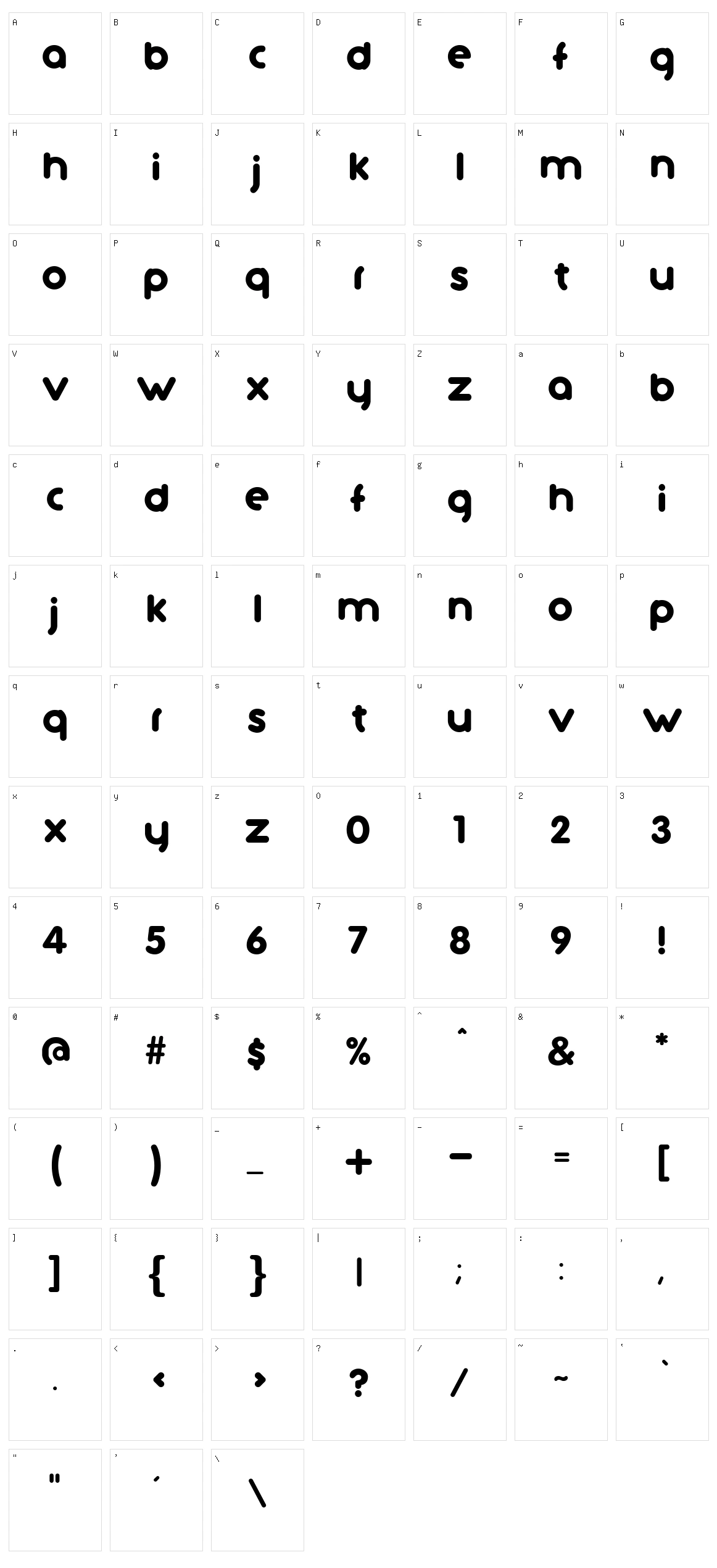
The free font Tutano.cc is carefully designed by tutano.cc, showcasing a thoughtful balance of creativity and usability and falls under the Groovy font style. When you download the ZIP file, it contains only 25.31 KB of font files, making it lightweight and quick to download. Please review the license details below to understand permitted usage and distribution rights. If license information is not available, we recommend using this font for personal projects only or contacting the author directly for commercial usage permissions.